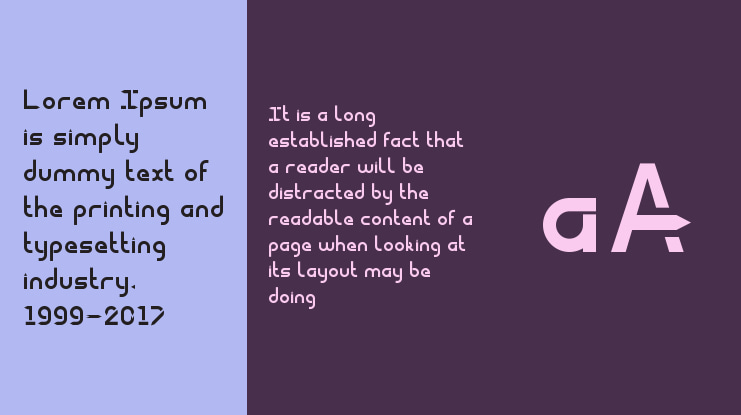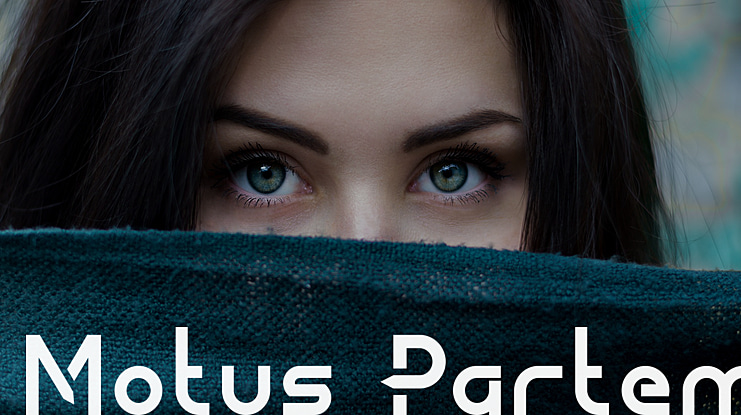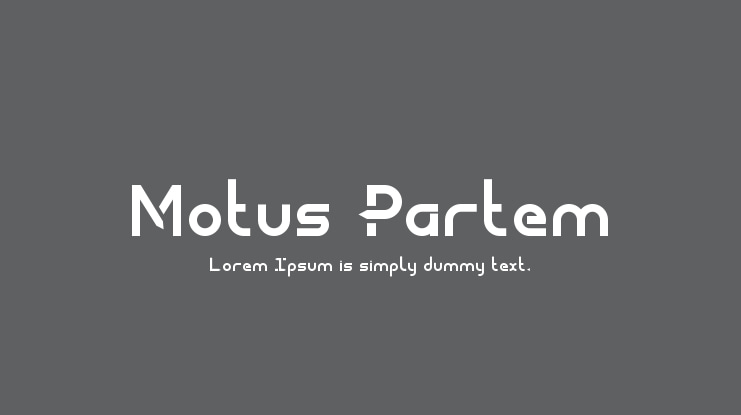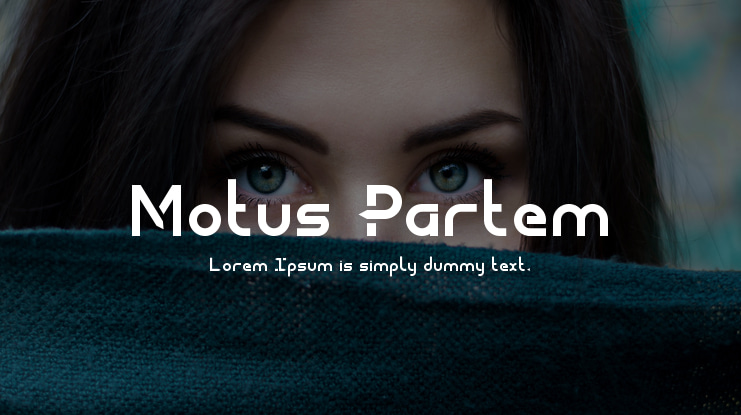
Motus Partem Font
This is a font I made in my final year of university. Best used as a display font and not for big sections of body text. Please visit my website https://joshtwisle16.wixsite.com/jtwis Enjoy my font: MOTUS PARTEM